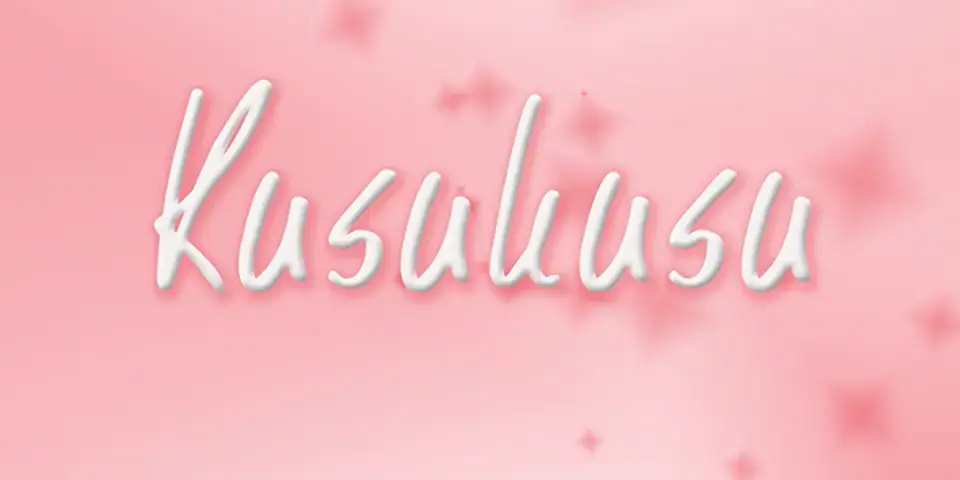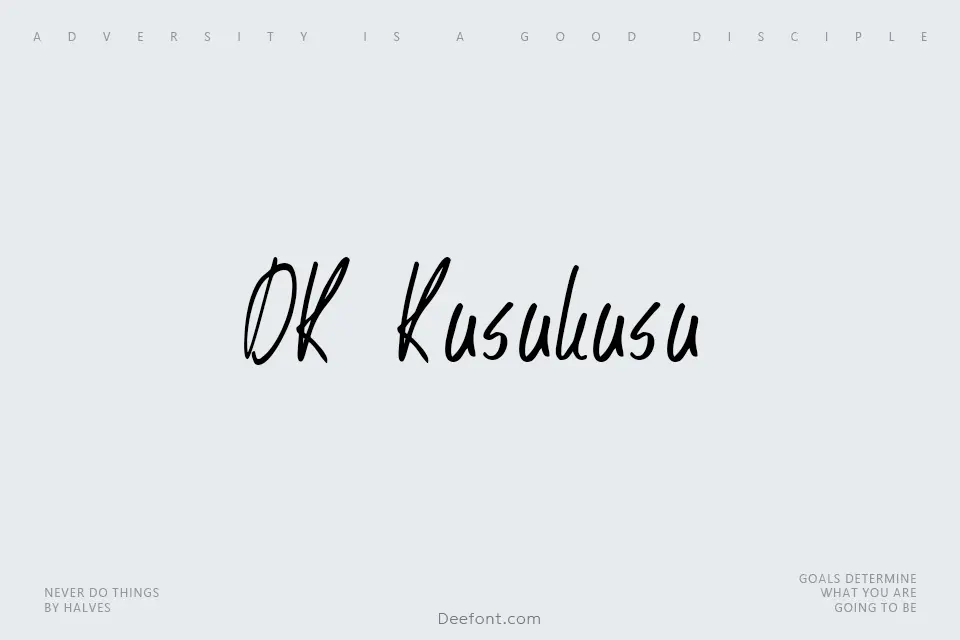
DK Kusukusu Font
DK Kusukusu is a lively, hand-drawn script typeface featuring playful and dynamic handwritten strokes with slight slanting and varied letterforms. Designed with natural, expressive characteristics, this casual handwriting font excels in creating engaging titles, eye-catching posters, decorative headings, greeting cards, and creative packaging designs. Its energetic and friendly aesthetic makes it perfect for projects requiring a personal touch, from informal invitations to fun brand identity applications. The font's 182 carefully crafted glyphs ensure comprehensive character support for diverse design needs. With its bouncy, organic style and loose pen-stroke quality, DK Kusukusu brings warmth and personality to any display-focused creative project.